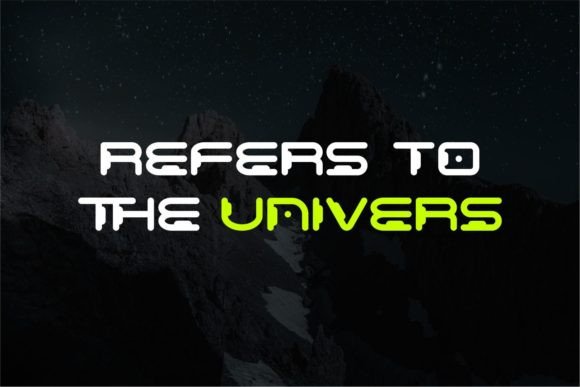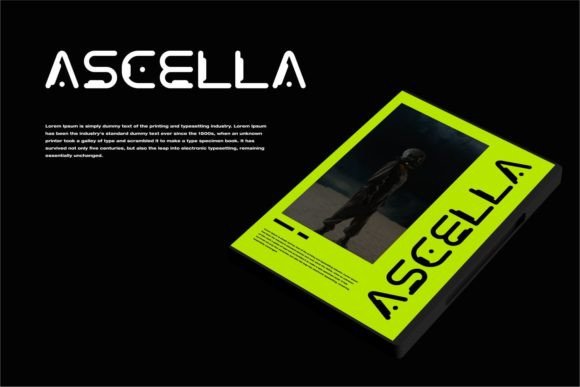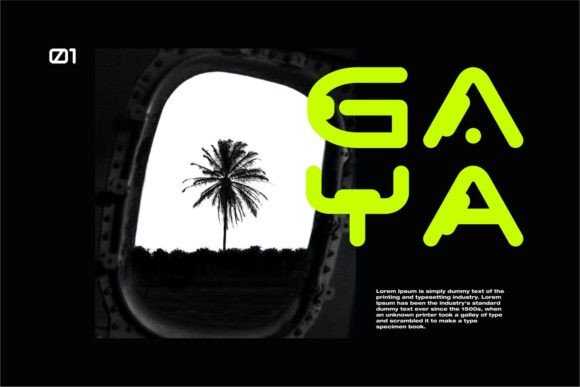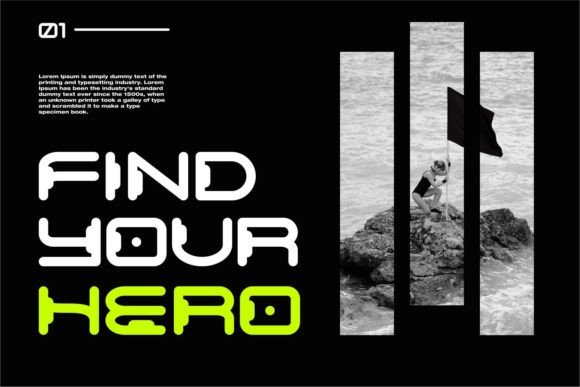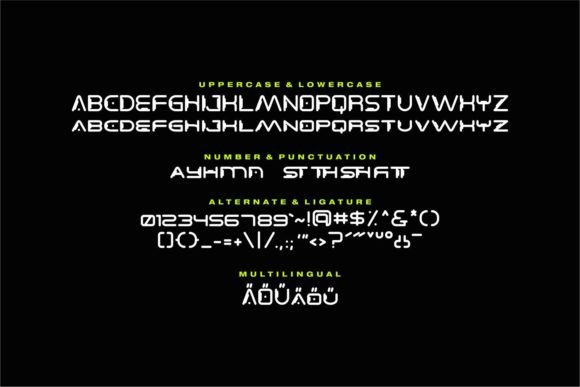
Introduction to Alioth Font
Alioth is a unique decorative font with a futuristic style.
It will look beautiful on magazine covers, greeting cards, branding materials, business cards, quotes, posters, and more .